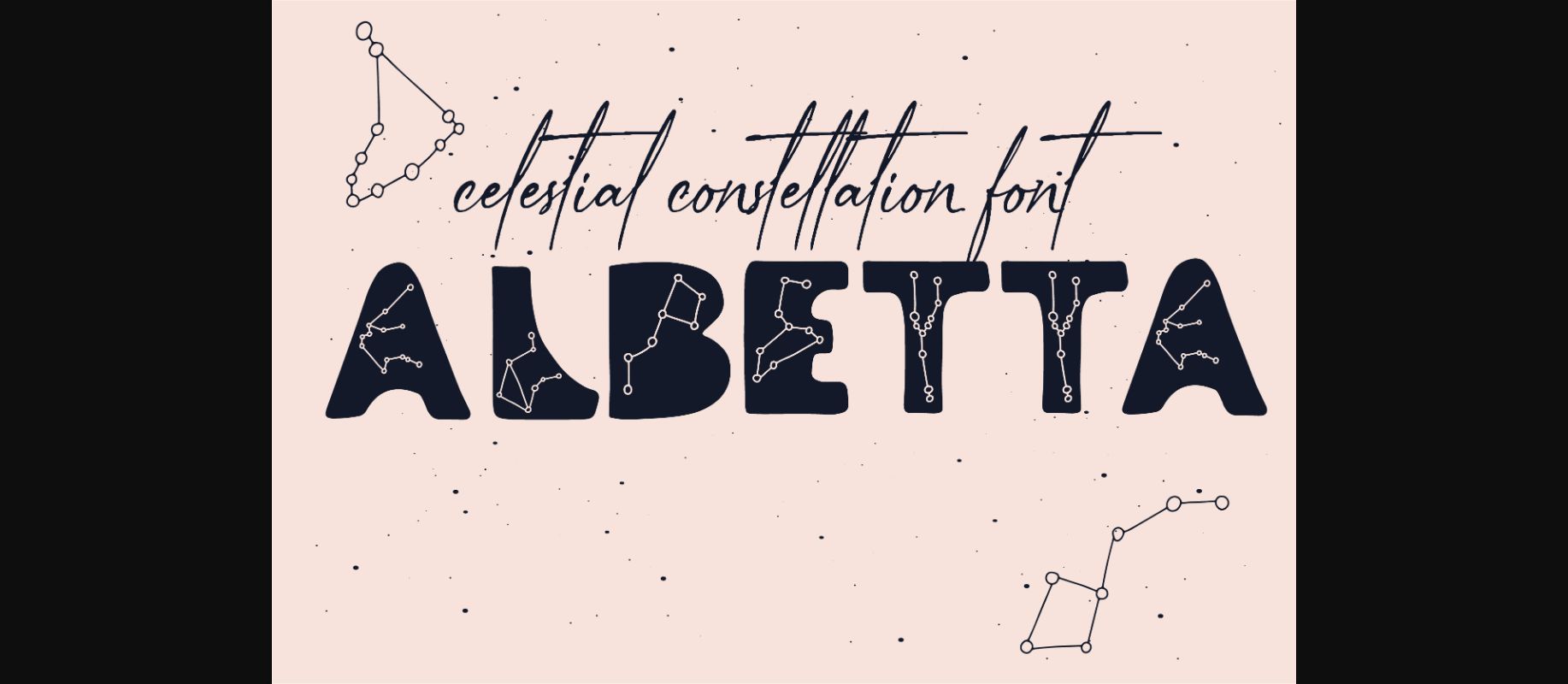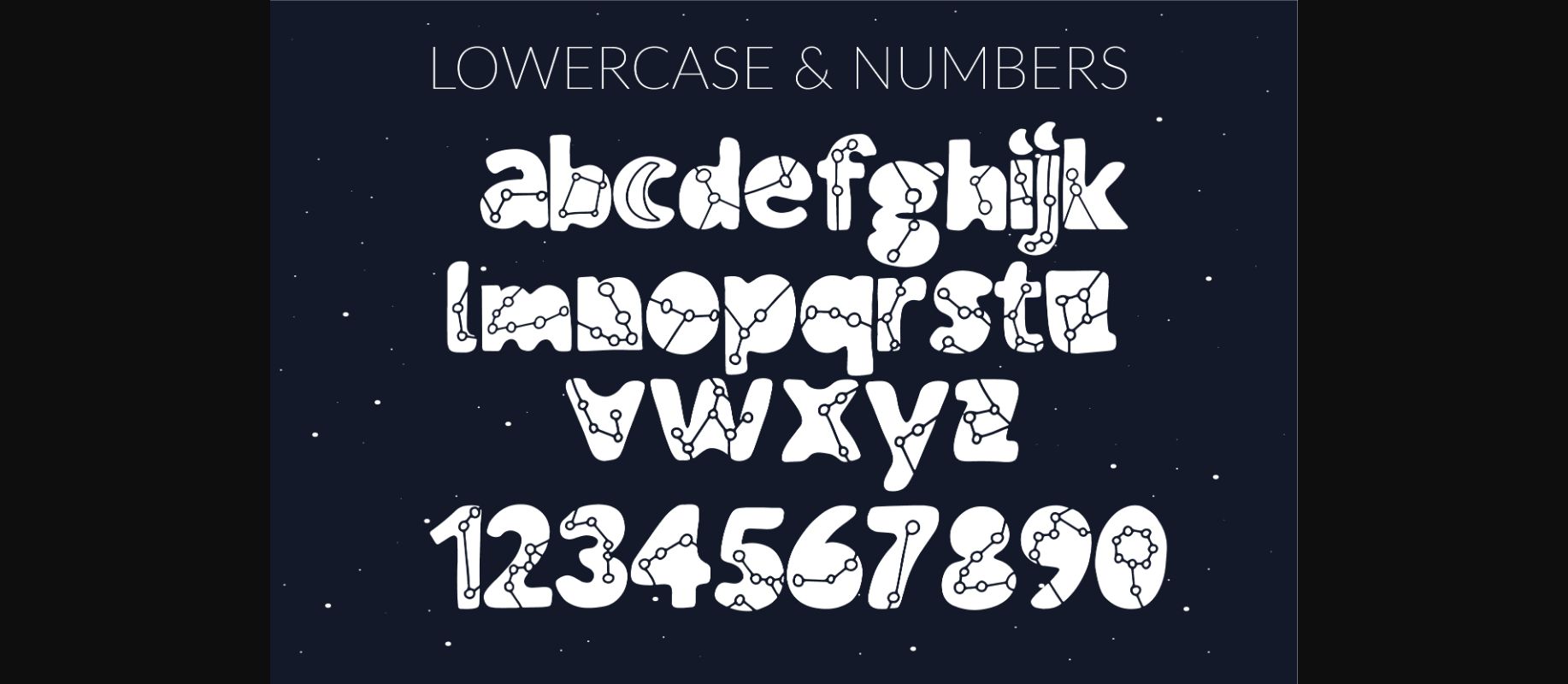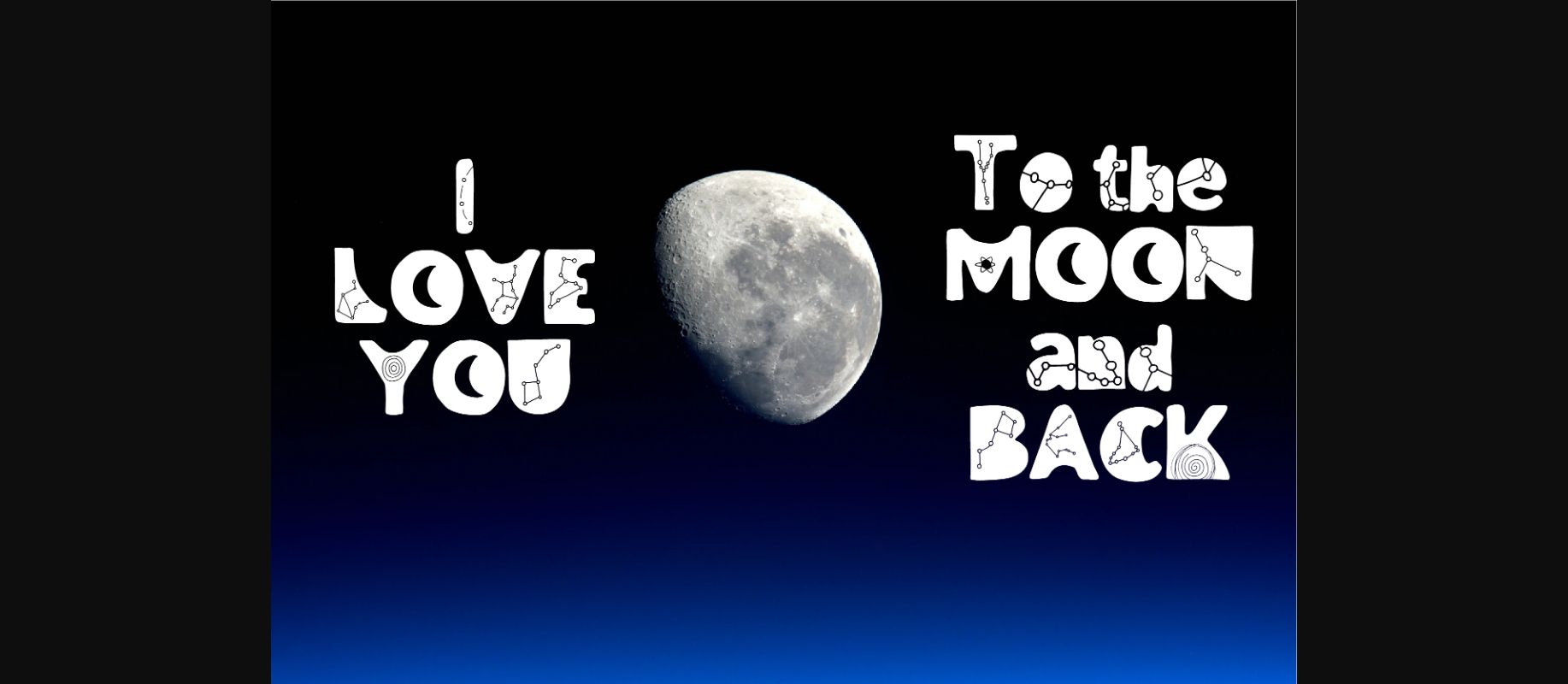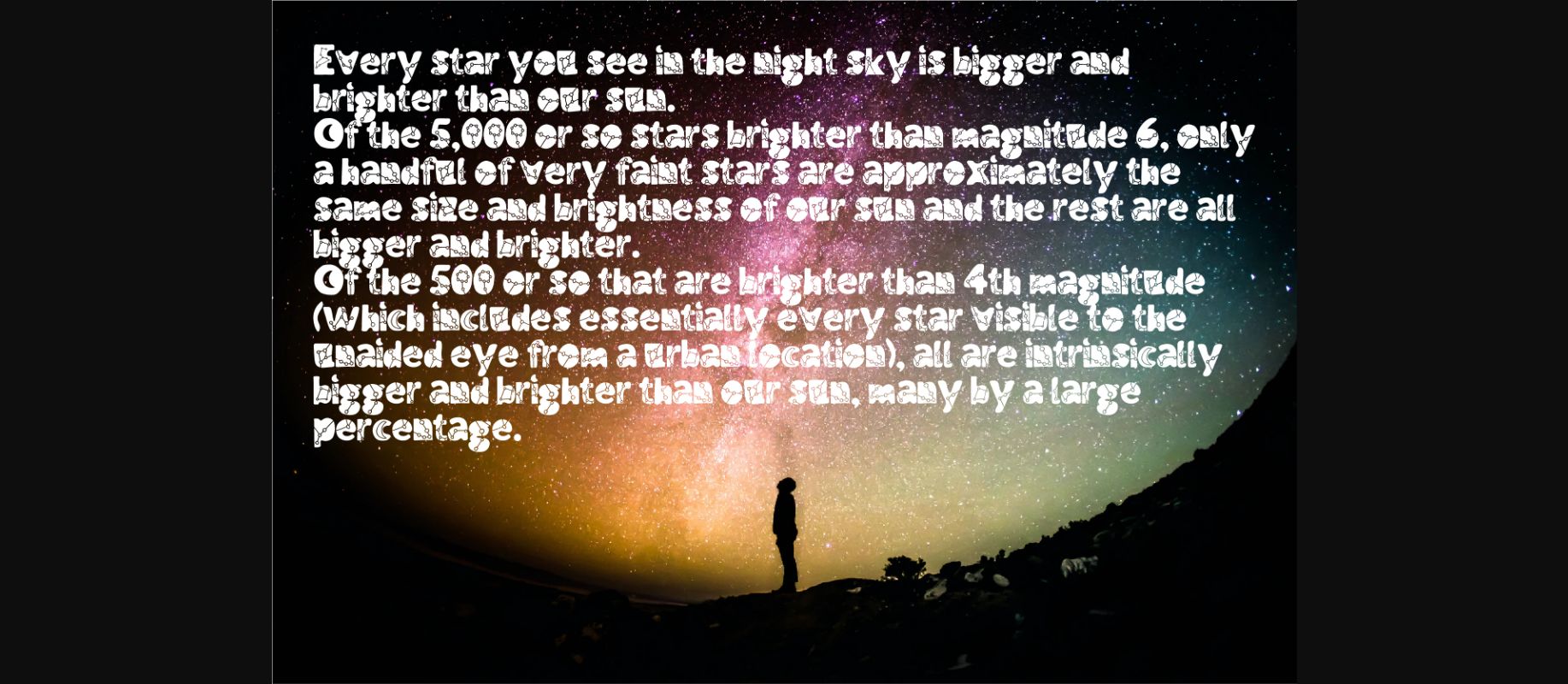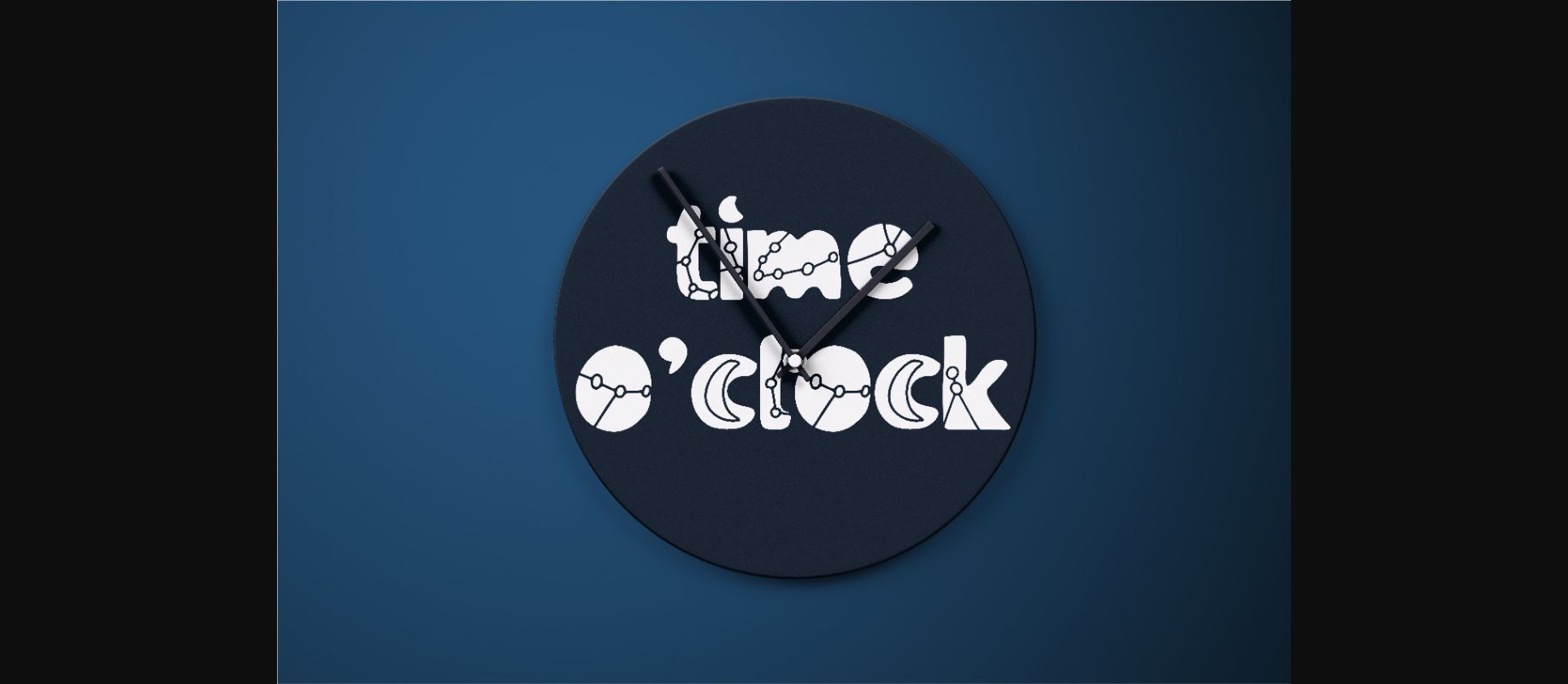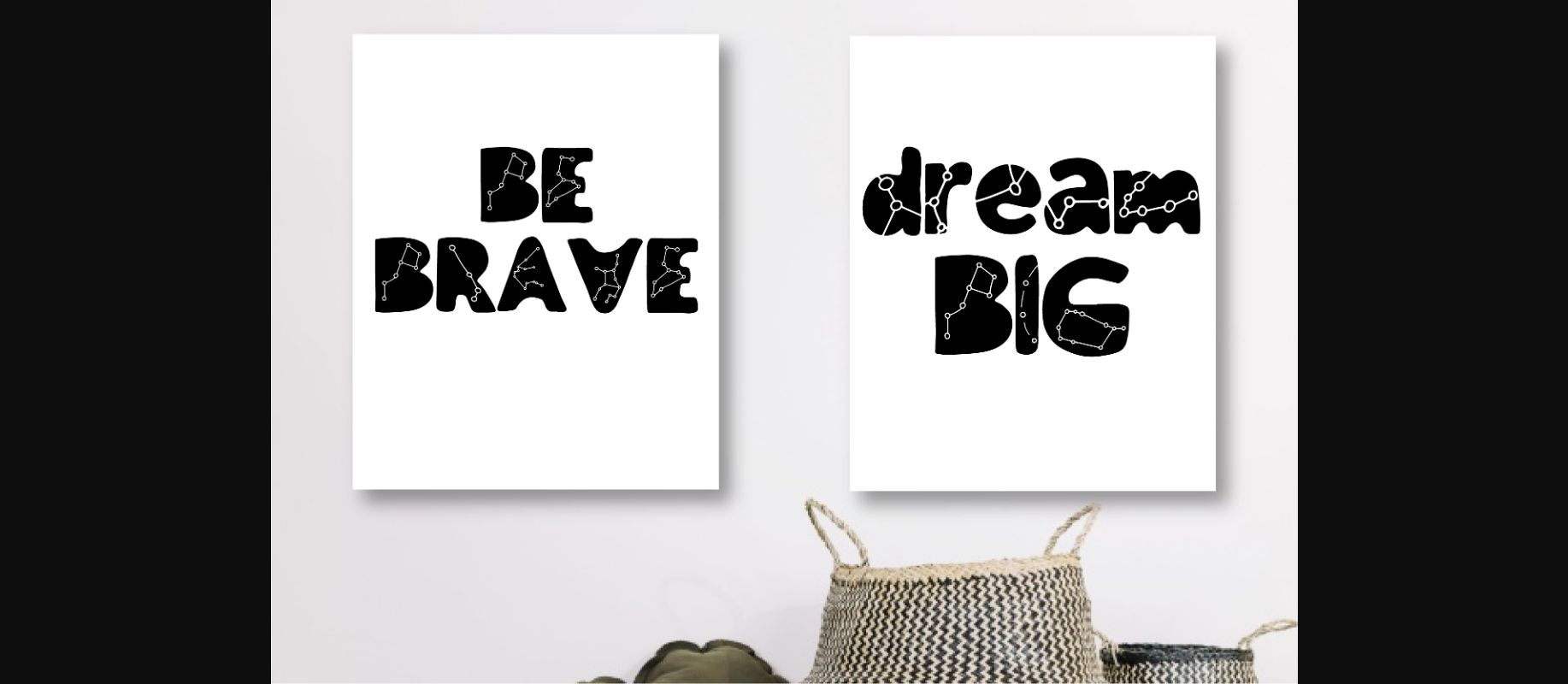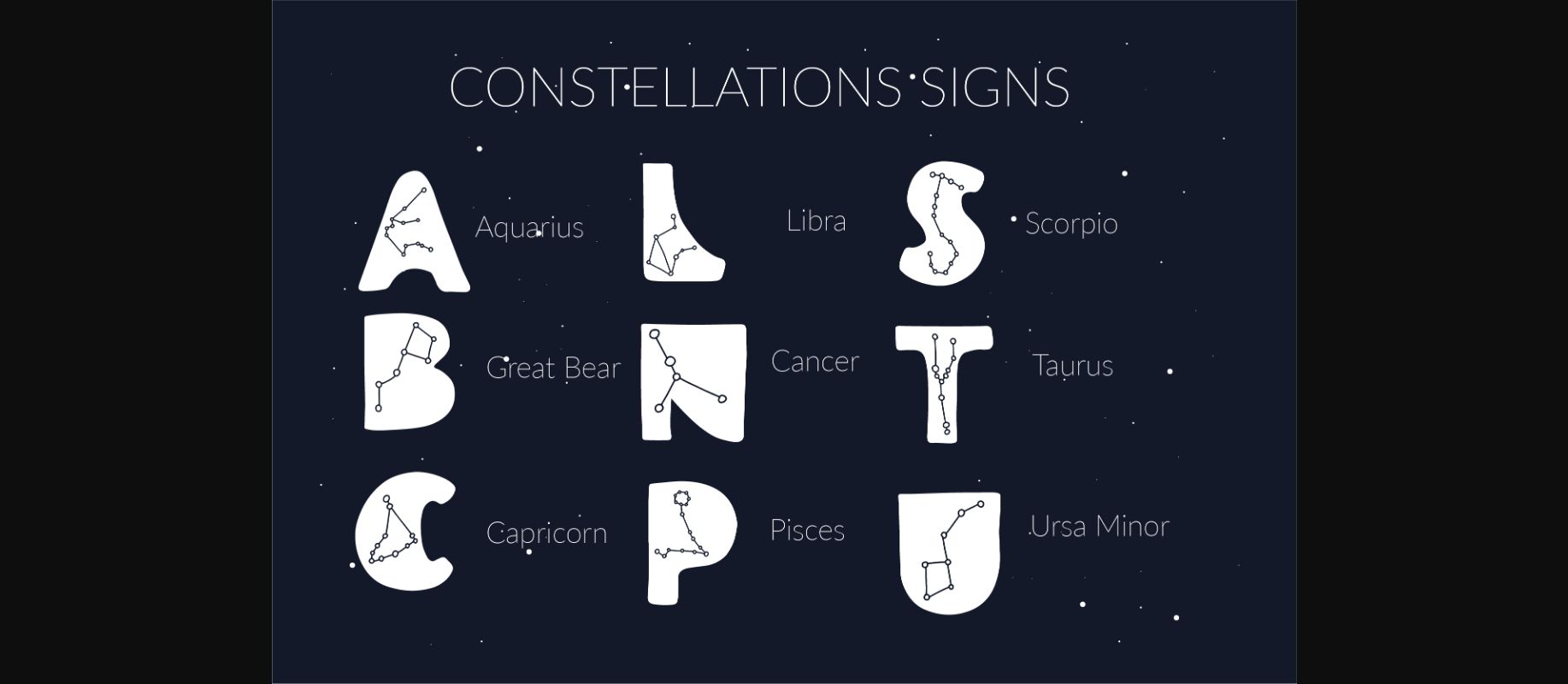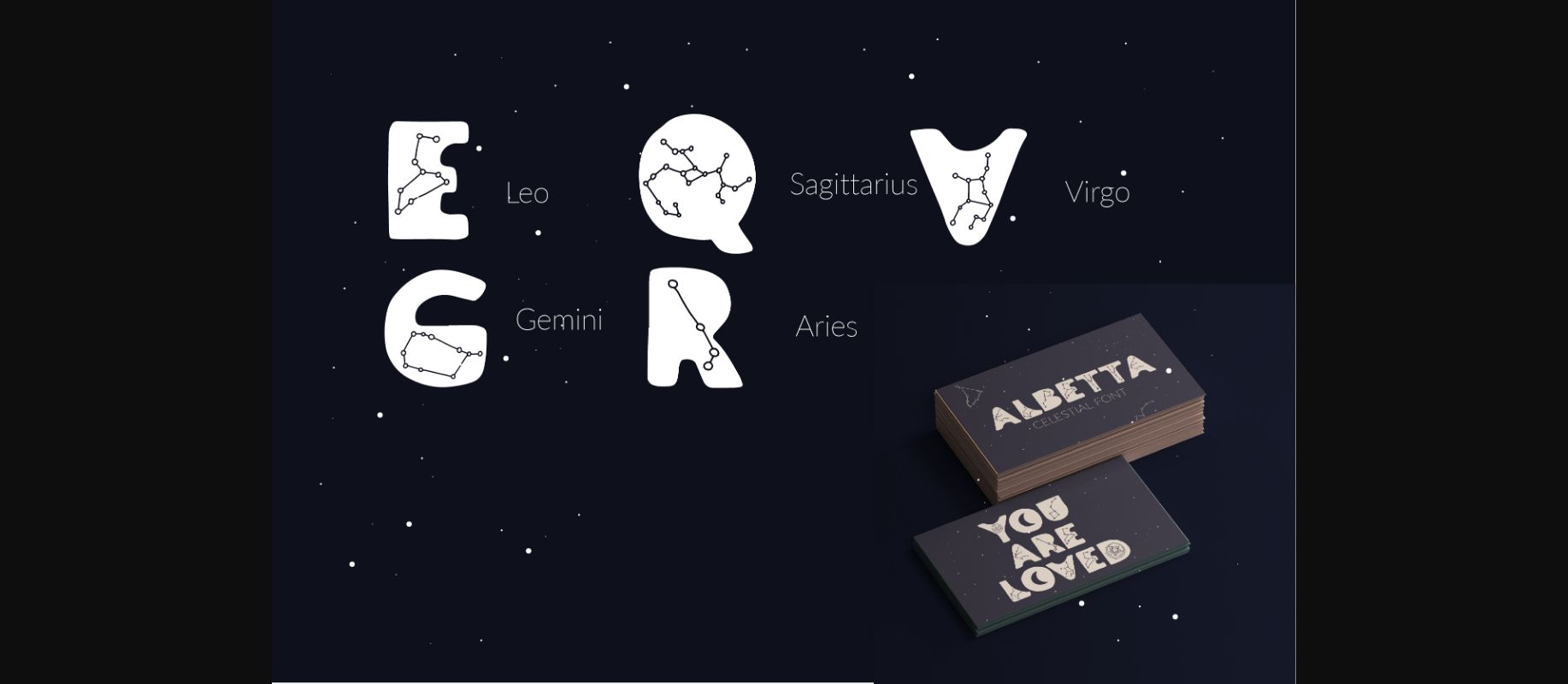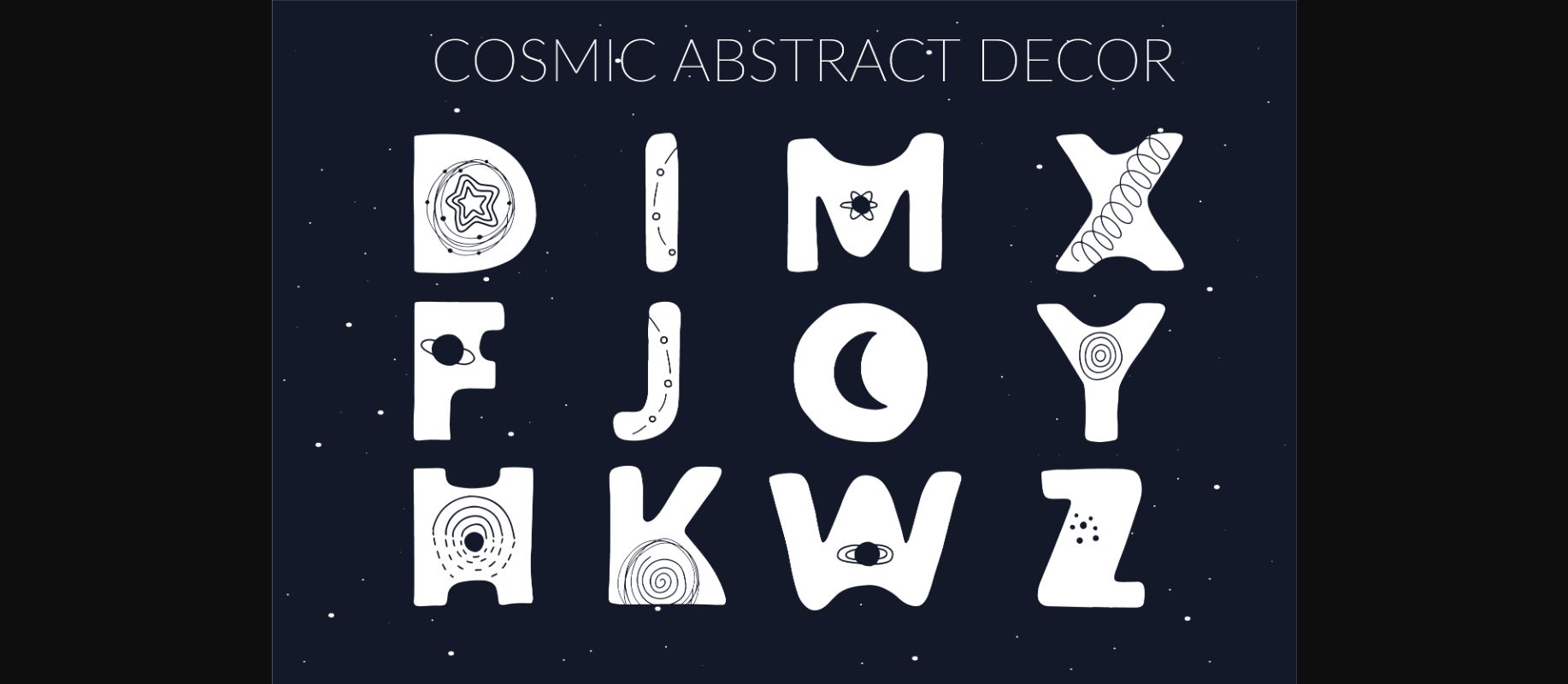
About Albetta Font
Albetta is a bold and incredibly unique decorative font. Add this font to your favorite creative ideas and notice how it makes them come alive!